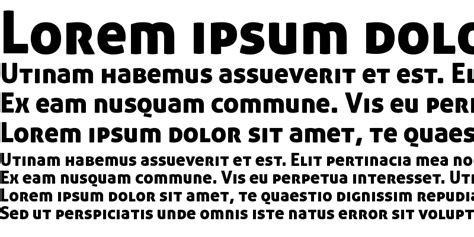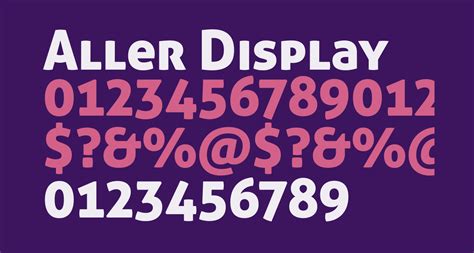
Aller Display Font
Web aller display takes the design of aller in a slightly more extreme direction, using small caps for some of the lowercase letters.